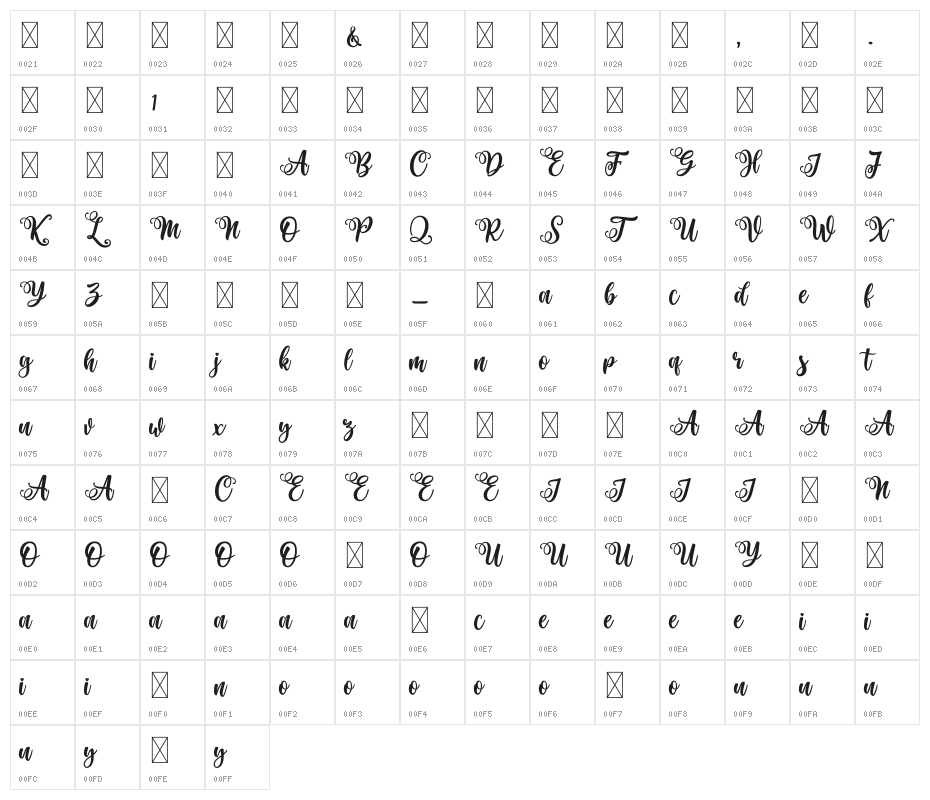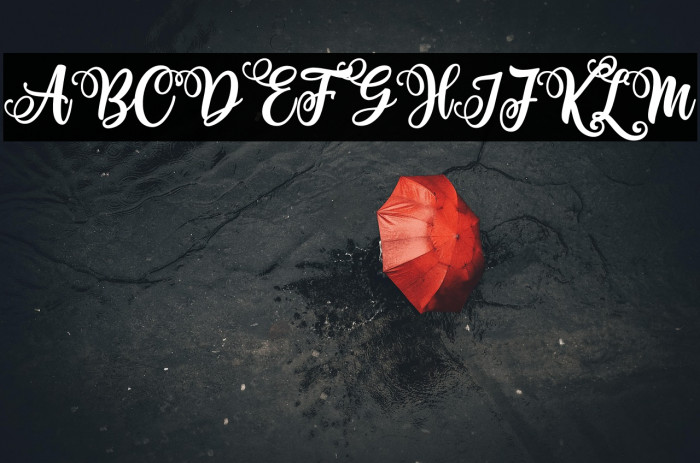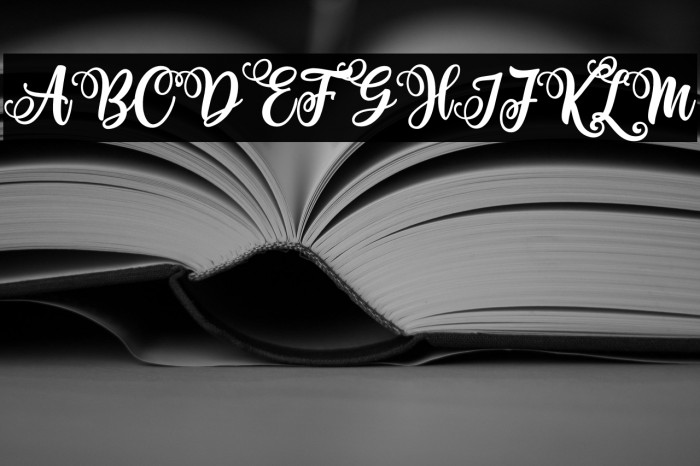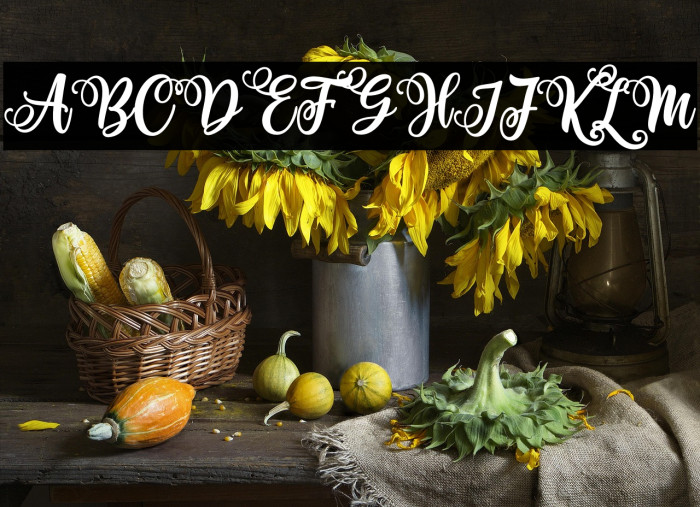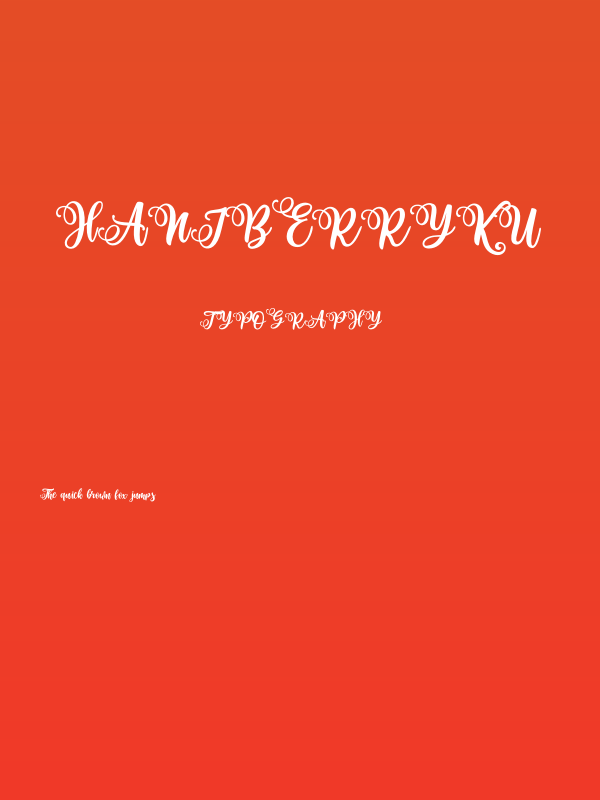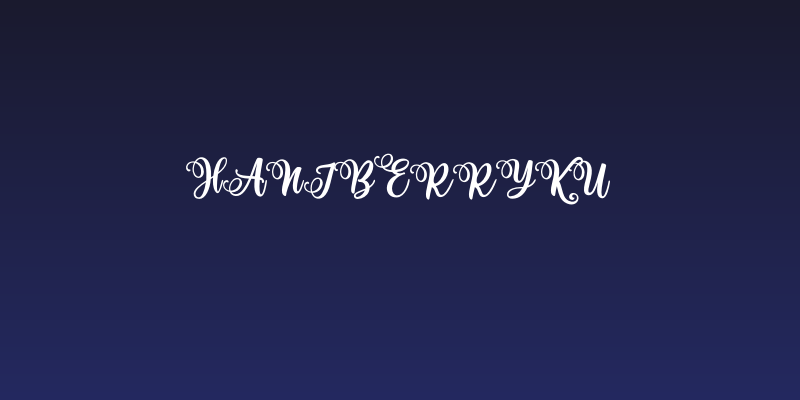
Haniberryku Font
Haniberryku Description
This font features an elegant and flowing script style, characterized by its decorative swirls and loops that add a touch of sophistication. The uppercase letters are particularly ornate, with intricate curls that enhance their visual appeal. The lowercase letters maintain a consistent flow, offering a harmonious balance between readability and artistic flair. The font's overall appearance is both graceful and dynamic, making it suitable for various creative applications. Its unique style is perfect for projects that require a personal and artistic touch.